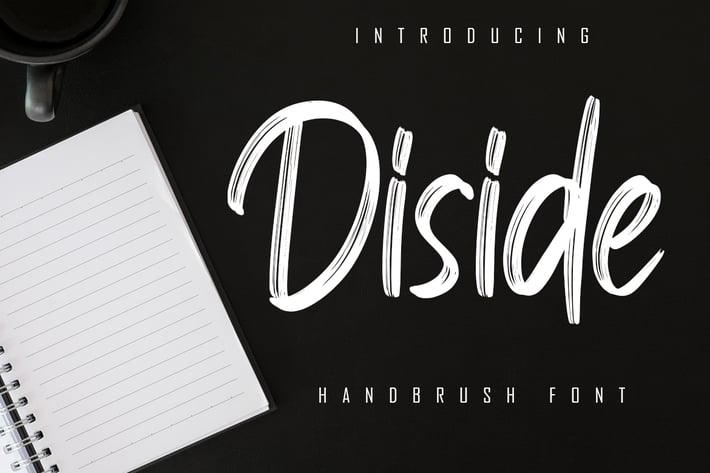
Diside - Handbrush Font
Diside Handbrush is a dry handbrushed font, designed to combine perfectly and allows you to create stunning handwriting quickly and easily.